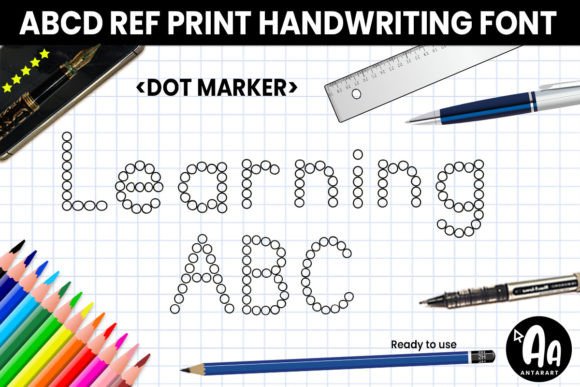
The Abcd Ref Dot Marker Font: A Game-Changer for Creative Learning
As a designer, I’ve had my fair share of projects that required a unique touch. One of my most memorable experiences was when I was tasked with creating interactive worksheets for a children’s educational program. I was on the hunt for the perfect font that would make learning fun and engaging. That’s when I stumbled upon the Abcd Ref Dot Marker Font, based on the D’Nealian Method US school. In this article, I’ll share my experience with this fantastic font and explore its features, uses, and alternatives.
What is Abcd Ref Dot Marker Font?
The Abcd Ref Dot Marker Font is a dotted display font designed to help create thousands of worksheets for learning and teaching the print alphabet in an enjoyable and interactive way. This font is perfect for designers, crafters, and creative hobbyists who want to add a playful touch to their educational materials.
Here’s what I love about the Abcd Ref Dot Marker Font:
- ✨ Unique and engaging: The dotted design makes learning fun and interactive.
- ✅ Ease of use: The font is easy to read and works well for creating worksheets.
- 🎉 Versatility: It can be used for various educational projects, from alphabet learning to handwriting practice.
However, I did notice a few quirks:
- 🤔 Limited character set: The font might not have all the characters you need for more complex projects.
- ⚠️ Not suitable for body text: The dotted design can be distracting for longer texts.
The Designer Inspiration Behind Abcd Ref Dot Marker Font
The Abcd Ref Dot Marker Font was inspired by the D’Nealian Method, a handwriting program developed in the 1970s. The method focuses on making handwriting easier and more efficient for children. The font’s creator aimed to bring this method to life in a digital format, making it easier for teachers and parents to create engaging educational materials.
| Font Name | Abcd Ref Dot Marker Font |
| Author | AntarArt |
| What is the D’Nealian Method? | The D’Nealian Method is a handwriting program developed to make handwriting easier and more efficient for children. |
| Can I use Abcd Ref Dot Marker Font for handwriting practice? | Yes, this font is perfect for handwriting practice and creating worksheets. |